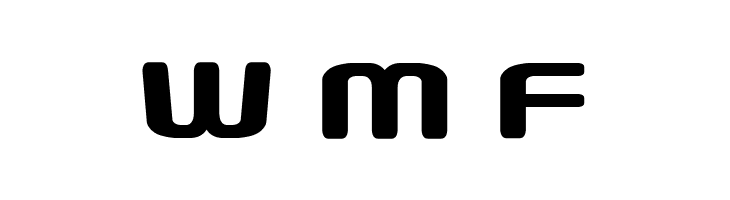
Welcome to our Top Fonts section — where popularity meets quality. These are the fonts most downloaded, shared, and used by designers across the world this year. Whether you’re working on branding, web design, or social media visuals, this curated list helps you pick fonts that already resonate with millions of users.
Each top-rated font stands out for its design balance, readability, and versatility. You’ll find everything from modern sans serifs to elegant scripts, vintage serifs, and minimalist displays. If you’re unsure where to start, the Top Fonts section is your shortcut to tried-and-true typefaces that simply work.
• Absortile Font
A classic serif font with high contrast and elegant, sharp serifs.
• EarthquakeTypewriter Font
A rugged, hand-drawn typewriter-style font with a modern twist.
• Suneater Font
A modern, elegant script font with flowing curves and decorative swashes.
• Bedlam absolute Font
• Sarsaparilla NF Font
A bold, geometric font with decorative elements and intricate curves.
• KleinSlabSerifBold Font
A bold slab serif font with strong, block-like serifs and a modern yet classic style.
• akaArcade Font
A whimsical and decorative font with playful swirls and loops.
• Anquietas Font
• Tonik BRK Font
A distressed, glitch-style font with a futuristic and edgy appearance.
• Pea Breathe Easy Font
A playful, casual handwritten font with a relaxed and informal vibe.
What are the top fonts right now?
Designers love Absortile, EarthquakeTypewriter, Suneater, Bedlam absolute and Sarsaparilla NF for their clean forms and broad use cases — from brand identities to landing pages and posters.
Which fonts are most popular for logos?
Geometric Sans Serifs (e.g., Poppins, Gotham-style families) are common for clean, scalable branding. For a friendly tone, script and handwritten styles remain evergreen. Pair a bold headline font with a neutral body font for balance and recognition.